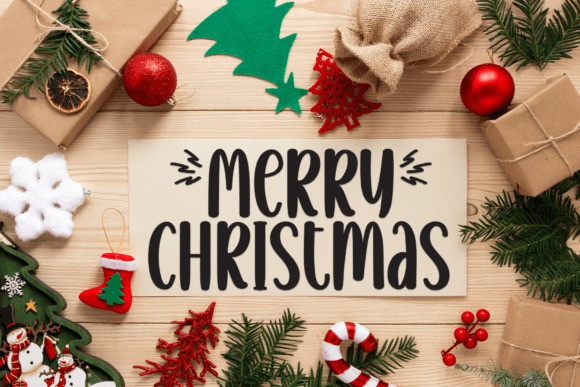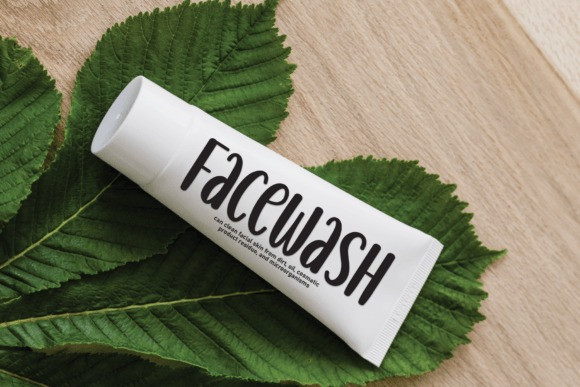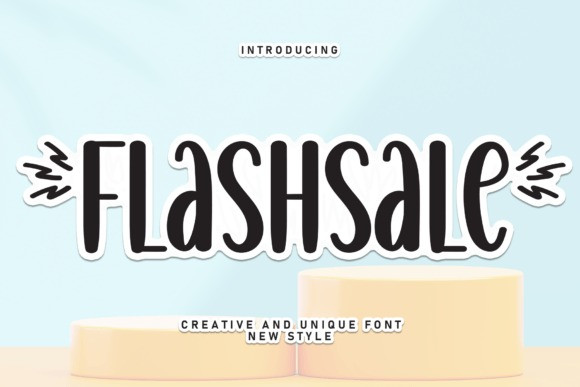
Flashsale Font
Flashsale Font is a lovely and timeless handwritten font. It is the best choice for creating eye catching logos, branding and quotes. Every letter has a unique and beautiful touch, which will make your design come alive